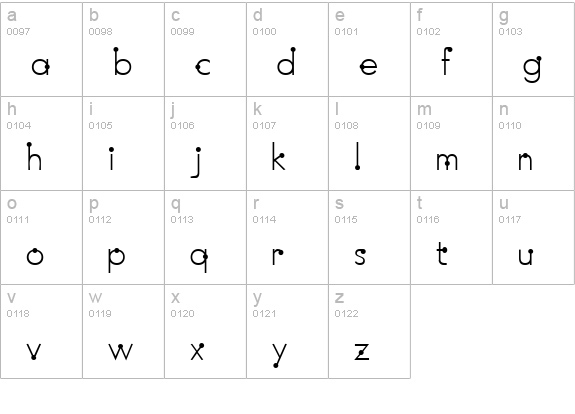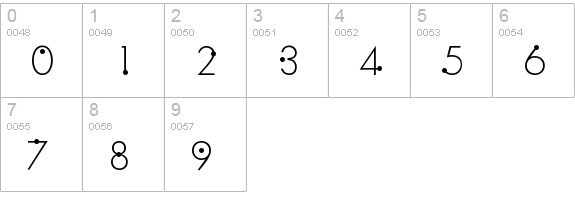
BoumBoum Font Details
BoumBoum font is a playful and whimsical typeface that exudes charm and creativity. With its rounded edges and fun, bouncy letterforms, BoumBoum is perfect for adding a touch of personality to any design project. Whether you're creating invitations, posters, or branding materials, this font is sure to make a statement. And the best part? BoumBoum font is completely free! That's right, you can download this delightful font at FontsMarket.com without spending a dime. So go ahead and add a touch of fun to your designs with BoumBoum font today!